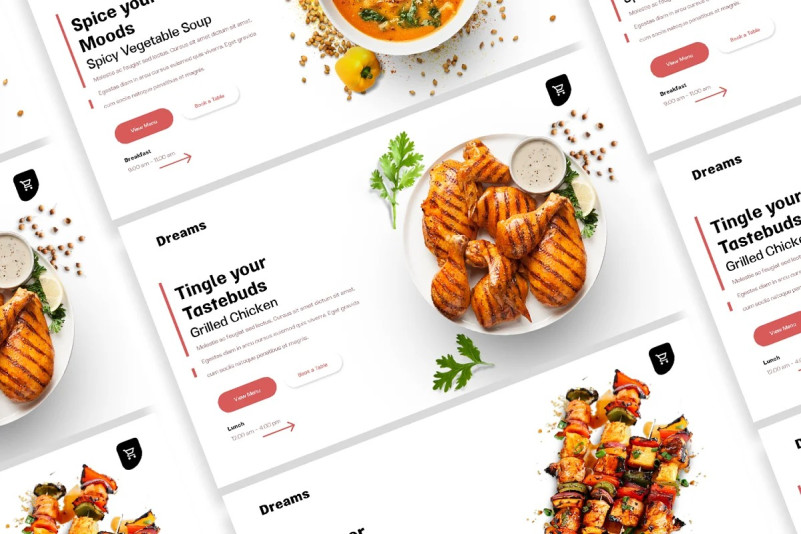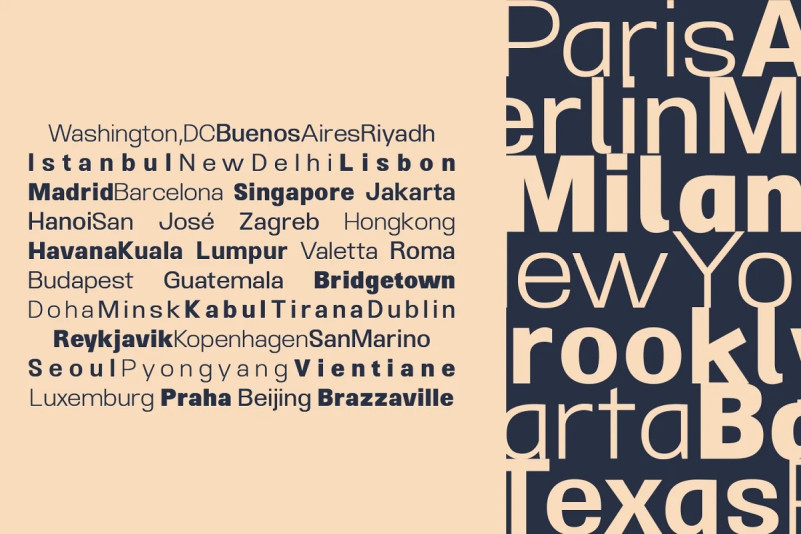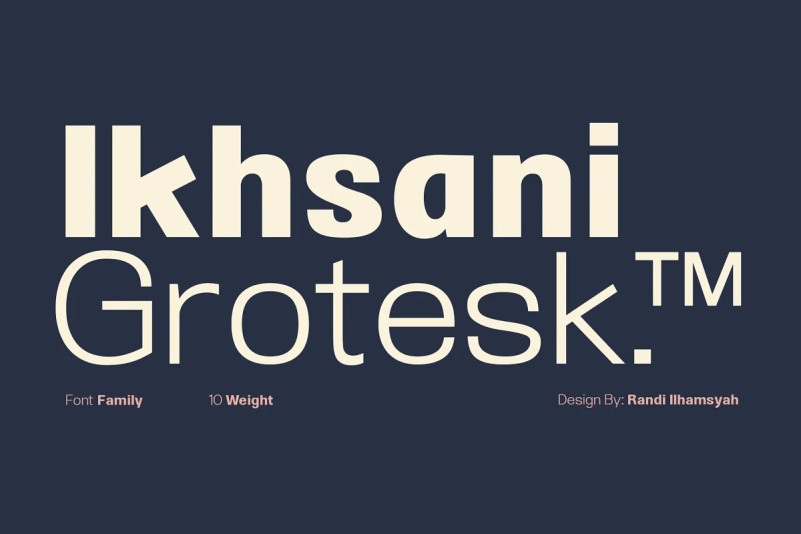
Ikhsani Grotesk Font
Ikhsani Grotesk Font is a typeface designed by Randi Ilhamsyah. It is a modern sans-serif font with a minimalist and clean design. The font features a strong geometric structure and a balanced spacing between characters, making it highly legible even at small sizes.
The font is inspired by the classic grotesque typefaces, but with a more contemporary touch, giving it a unique and timeless look. It includes several weights and styles, allowing for a versatile use in various design projects.
Ikhsani Grotesk is suitable for a range of applications, including editorial design, branding, web design, packaging, and more. Its strong and confident personality makes it a great choice for projects that require a bold and impactful visual identity.